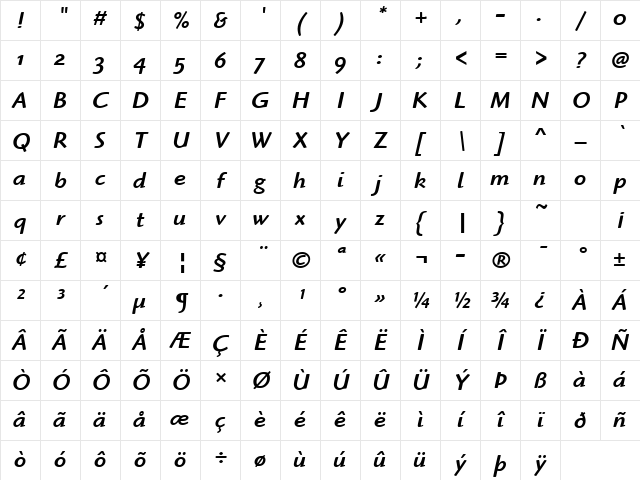
Highlander Md OS ITC TT MedIta
Style: MedIta
Highlander Md OS ITC TT Family
Complete Highlander Md OS ITC TT MedIta glyph index. Displaying only characters natively supported by Highlander Md OS ITC TT MedIta font.
Design Context for Highlander Md OS ITC TT
Highlander Md OS ITC TT is a composed and adaptable typeface that performs quietly and consistently across a wide range of design contexts.
Pro Tip: Use Highlander Md OS ITC TT in both headline and body roles to test its range before committing to a single application.